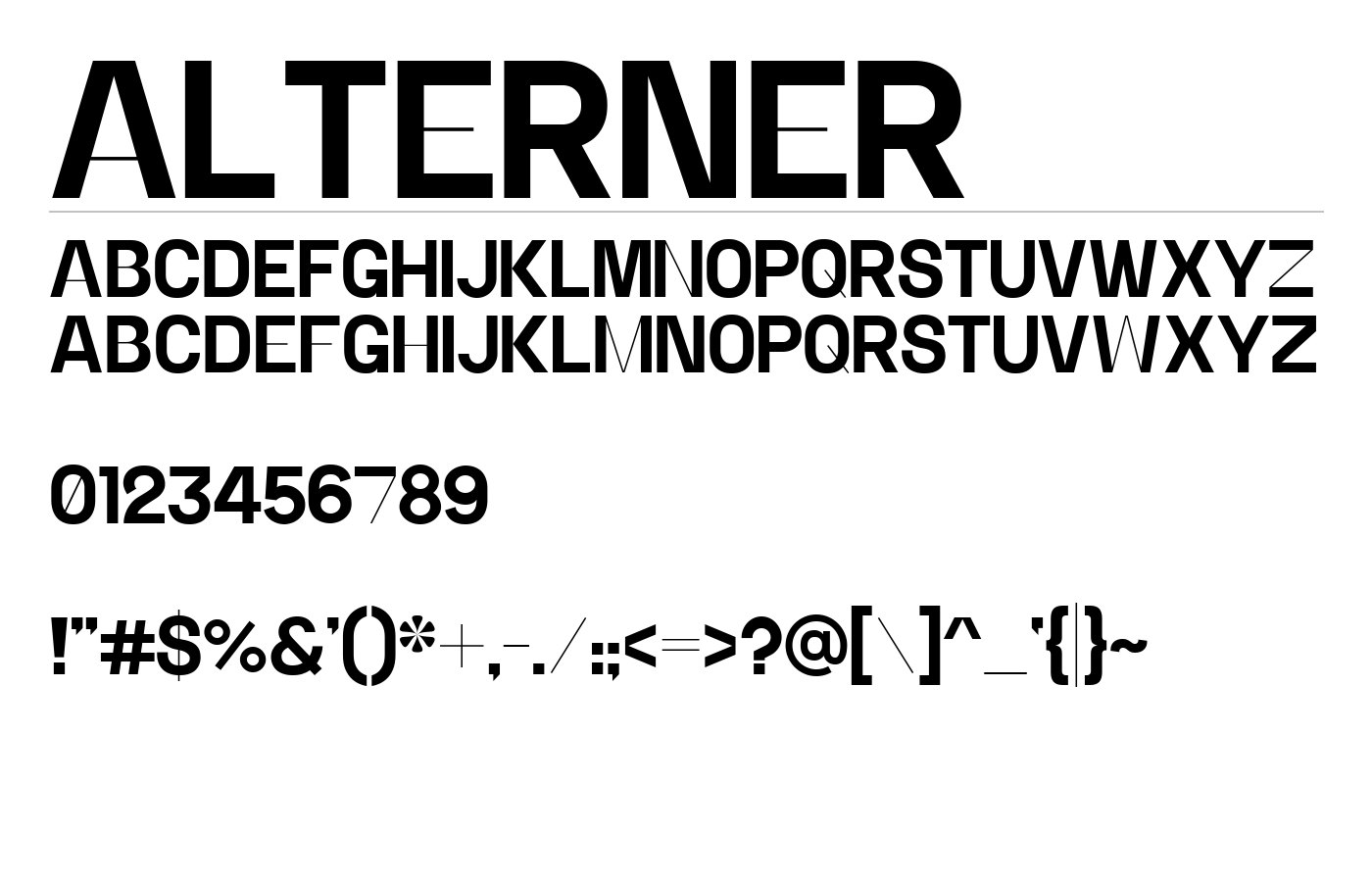
Alterner is a modern sans serif font with a bold weight and a condensed width, offering a strong and confident presence. Its clean, geometric shapes combined with high contrast in letterforms give it a contemporary, edgy feel, making it ideal for striking headlines, branding, and editorial use where attention and clarity are key. This font works well for designs that need a sharp, stylish, and impactful look.
Alterner Font
About Alterner Font